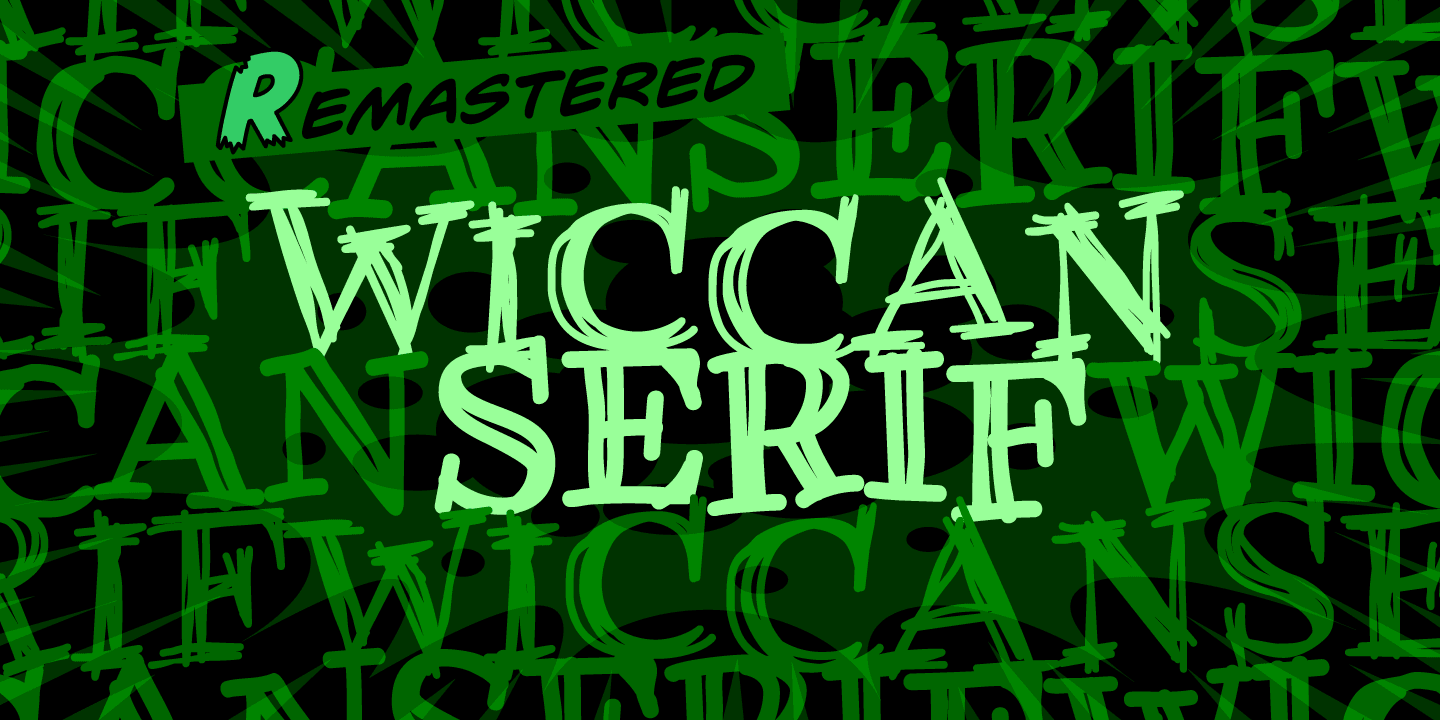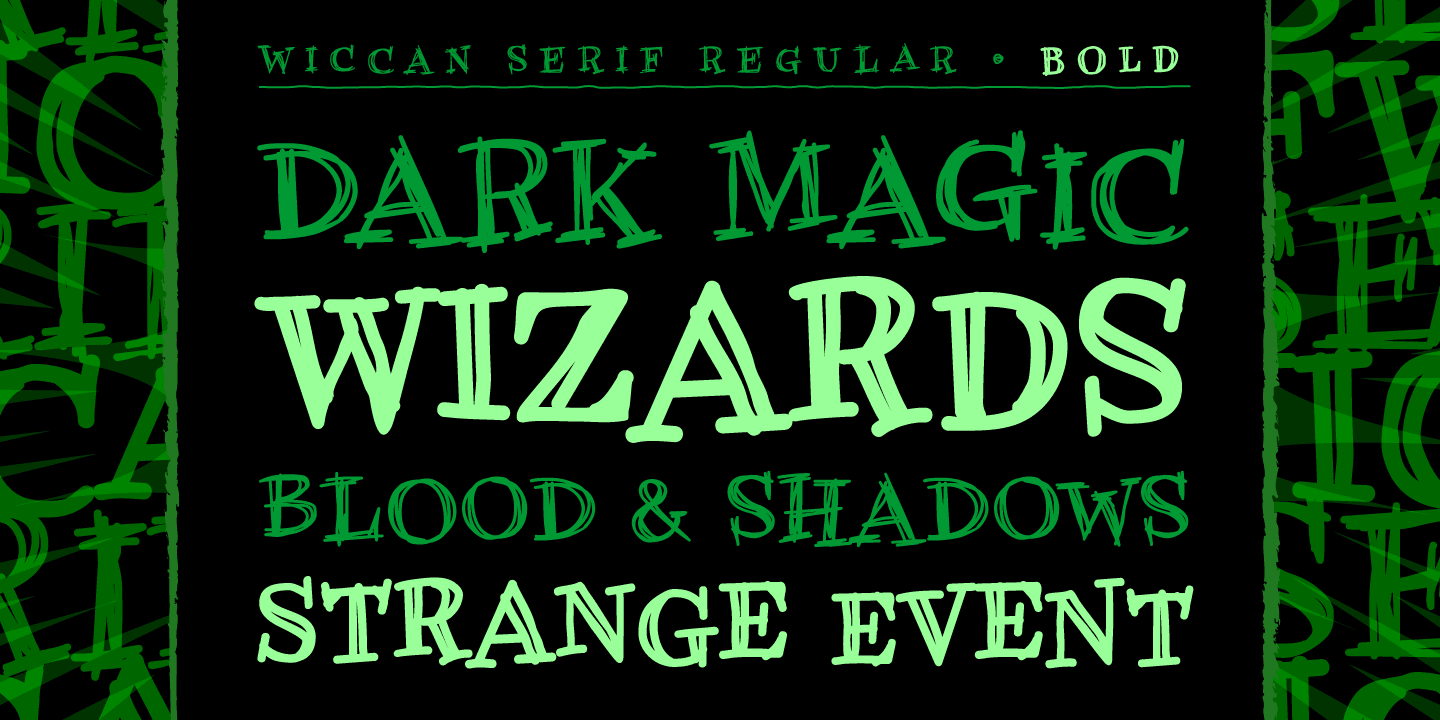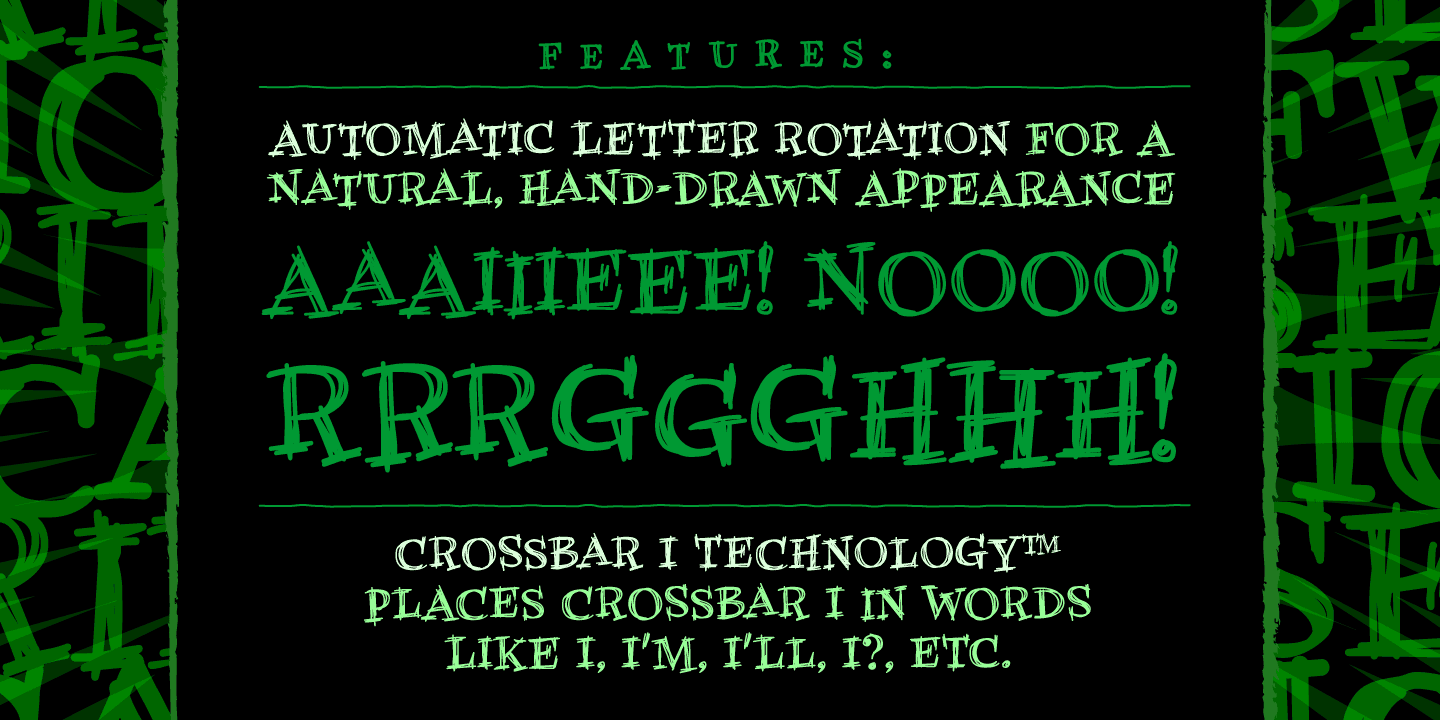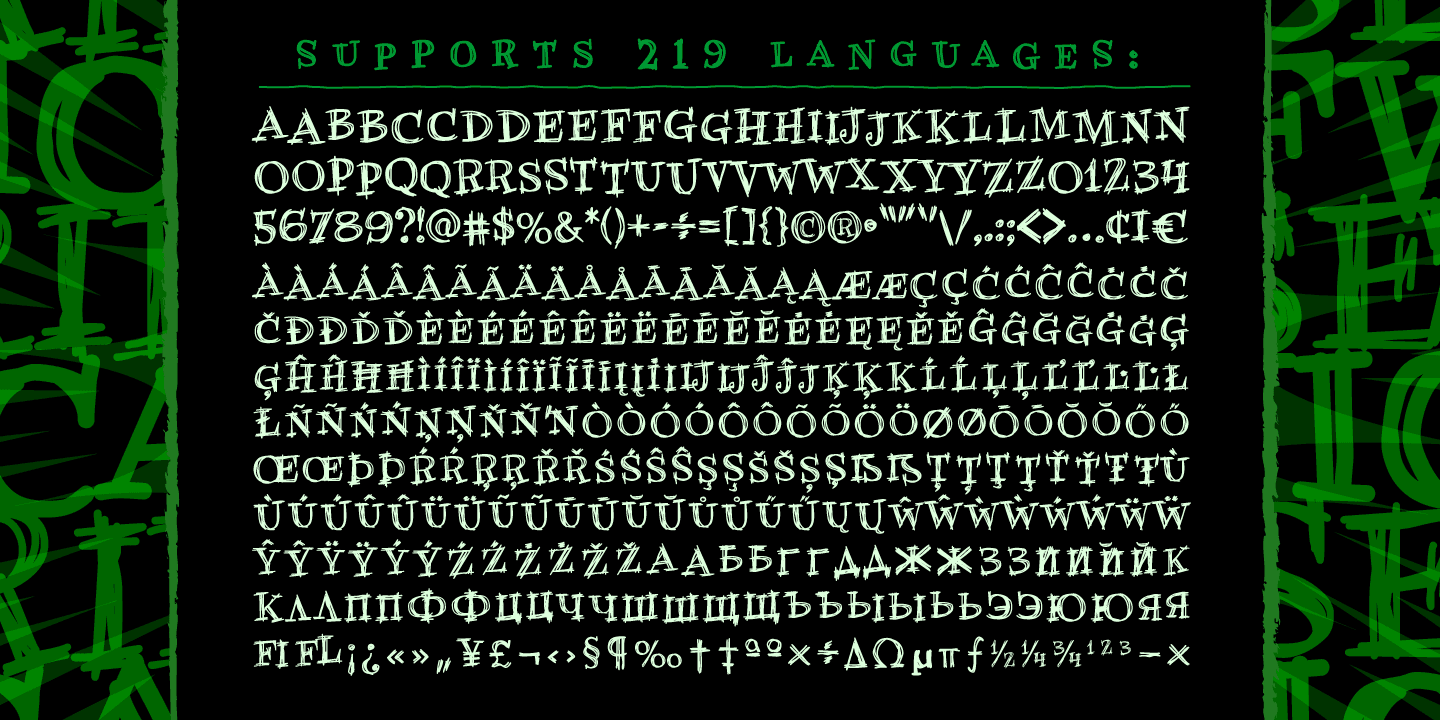
Wiccan Serif
Font Family by Comicraft Fonts
Wiccan Serif is a decorative serif family with a bold, hand-drawn spirit and a distinctly spooky, offbeat edge. Its irregular shapes, rough edges, and slightly distressed texture give it a quirky gothic flavor that feels playful rather than severe, making it an easy choice when you want serif letterforms with more personality.
With 2 included styles—Regular and Bold—this family gives you a compact set for punchy display work. It suits posters, comic-inspired graphics, themed branding, packaging, signage, and other attention-grabbing layouts where a whimsical, textured serif can do more than a conventional text face.
Created by Comicraft Fonts, this family leans into expressive character over polish, which is exactly what makes it memorable. If your project calls for something decorative, slightly distressed, and full of handmade energy, this one brings a strong visual voice without feeling overworked.